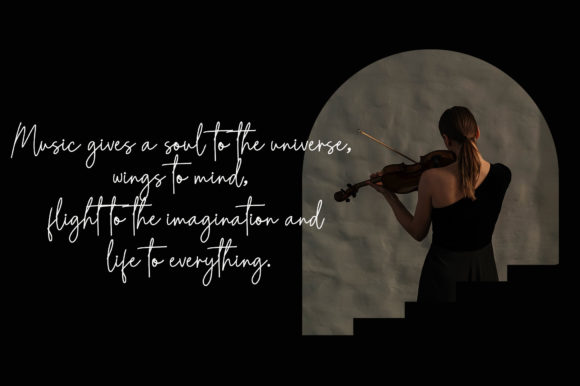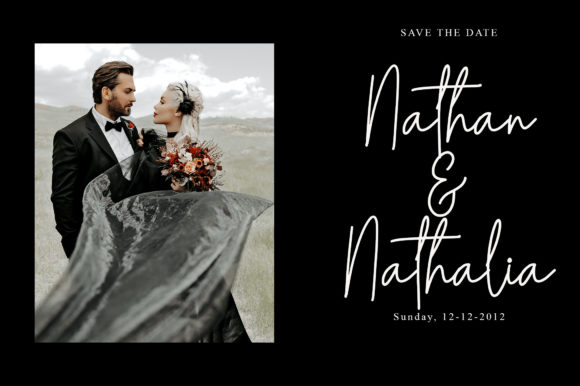
Urban Signature Font
db-ku.com - Script & Handwritten -- Urban Signature is a sweet, flowing, and thin lettered script font. Fall in love with its incredibly versatile style and use it to create gorgeous wedding invitations, beautiful stationary art, eye-catching social media posts, and much more!